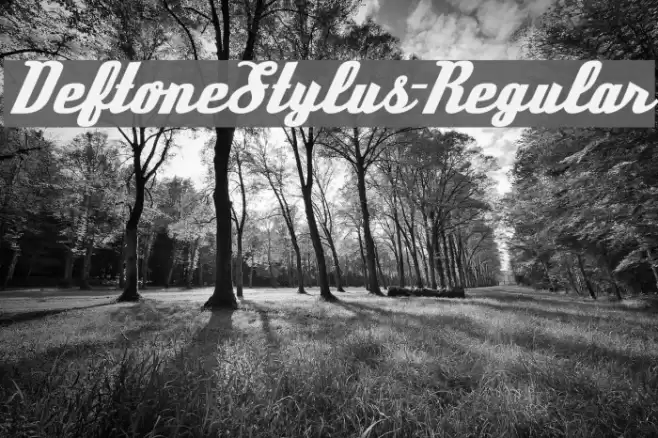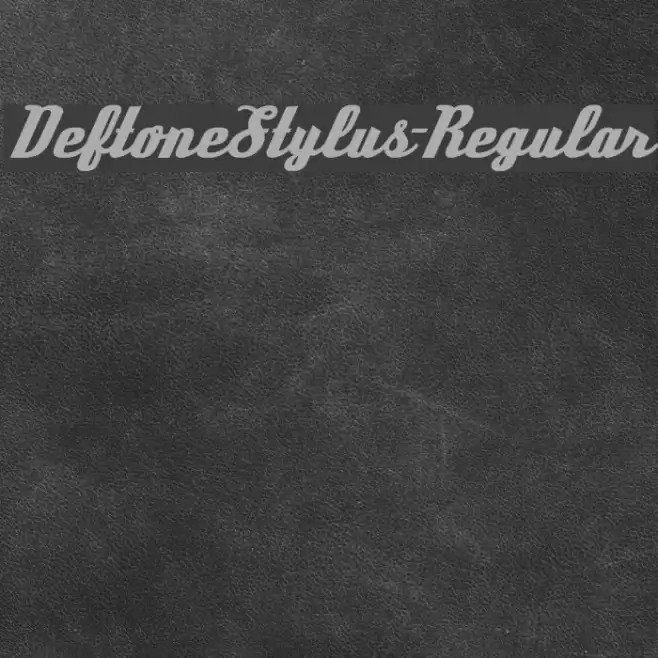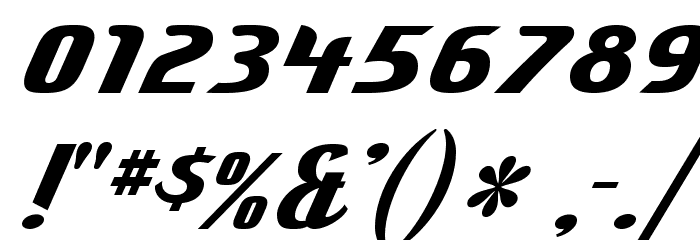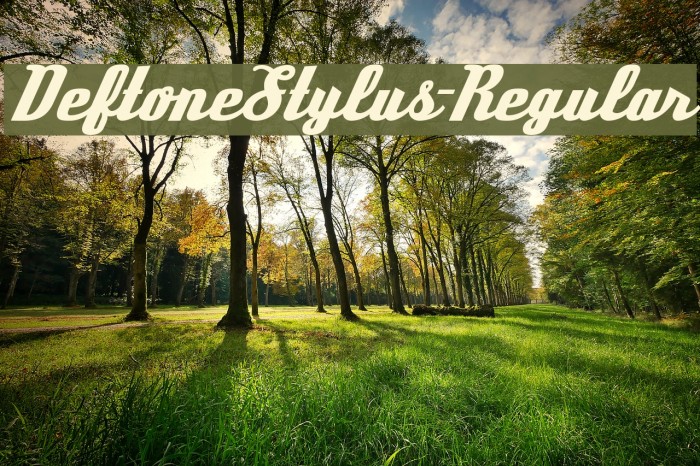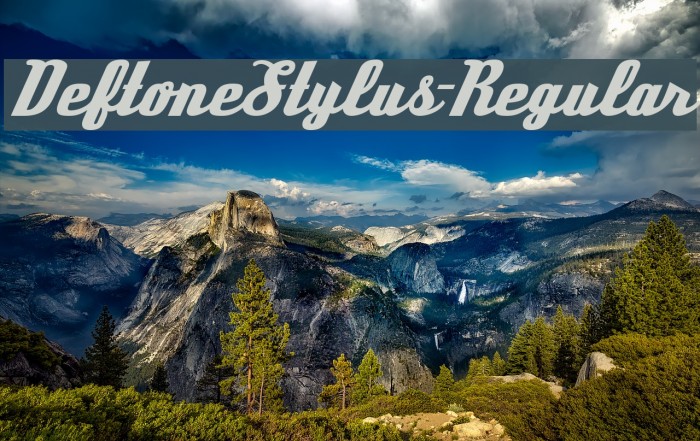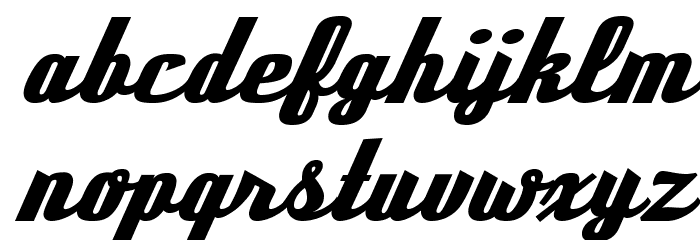
DeftoneStylus-Regular Font
DeftoneStylus-Regular Description
This font features a bold, cursive style with a strong, flowing script that exudes a sense of elegance and dynamism. The characters are connected, creating a seamless and fluid appearance. The uppercase letters are particularly striking, with exaggerated loops and swashes that add a decorative flair. The lowercase letters maintain the same fluidity, with consistent stroke widths that enhance readability. The numerals are equally bold and maintain the cursive style, ensuring uniformity across all characters. Special characters are designed with the same attention to detail, making them suitable for a variety of uses. This font is ideal for projects that require a touch of sophistication and style.
A bold, cursive font with flowing, connected characters and decorative swashes from Uncategorized fonts.
- Proposed Projects: Ideal for branding, invitations, greeting cards, and elegant signage.
- Character Spacing: Tight
- Use Case: Logos, Headlines, Invitations